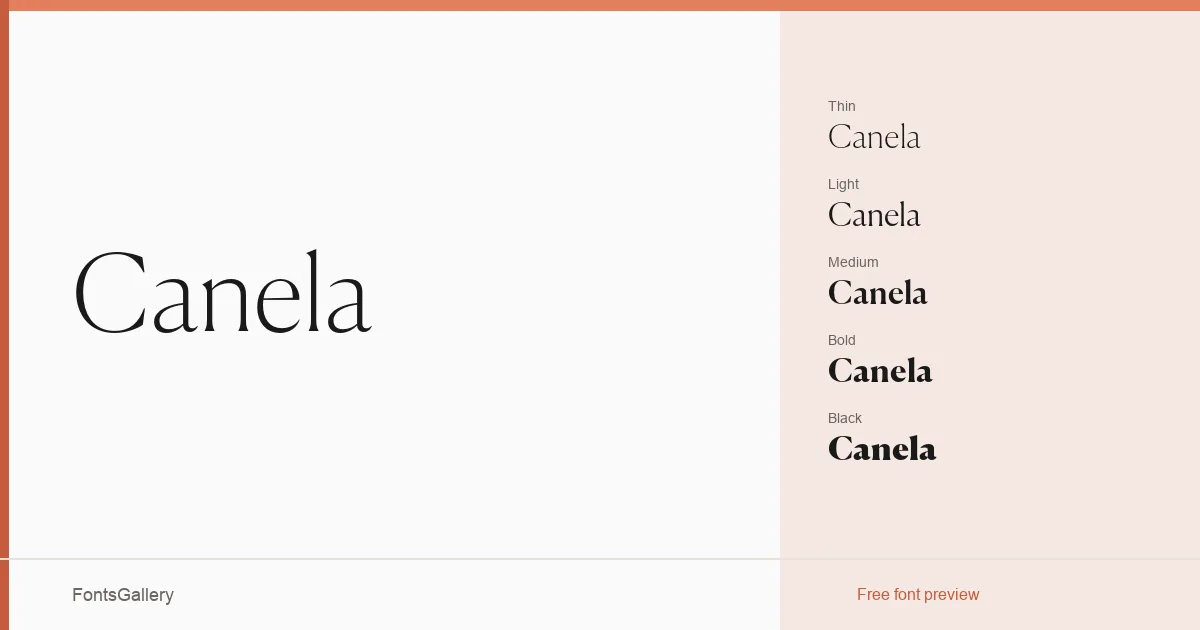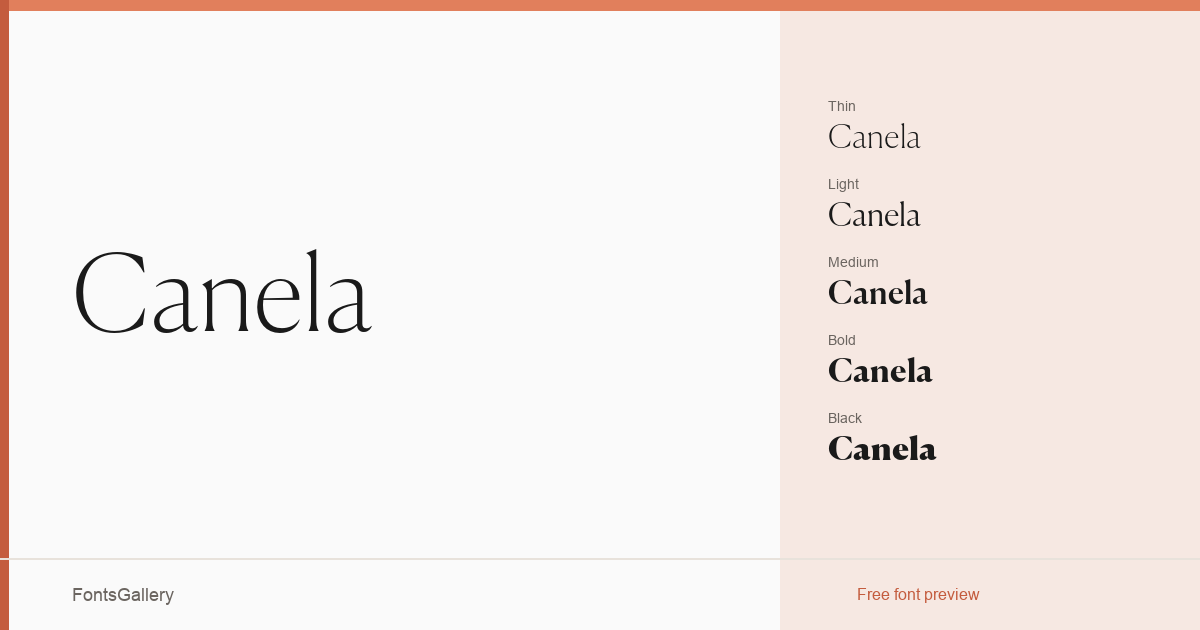
About Canela Font
Canela is an elegant serif typeface designed by Miguel Reyes and released through Commercial Type, Inc. It masterfully bridges the gap between classic typographic tradition and modern refinement, making it a distinguished choice for high-end creative work. Its sophisticated character lends itself naturally to projects that demand both authority and grace.
Canela's letterforms embody a luxurious yet modern sensibility, featuring the refined strokes and considered proportions characteristic of contemporary serif design. The typeface carries a classic elegance in its structure while maintaining a clean, modern edge that feels equally at home in editorial and branding contexts. Its carefully crafted details reward close inspection, projecting a sense of understated luxury throughout.
Canela excels in high-impact applications such as magazine layouts, book covers, editorial headlines, logo design, and premium branding projects where elegance and distinction are essential. Its strong personality makes it a natural choice for luxury brands seeking a typographic voice that feels both timeless and contemporary. Canela pairs beautifully with Helvetica for a classic modern contrast, or with Ballmain for a more expressive, fashion-forward combination.